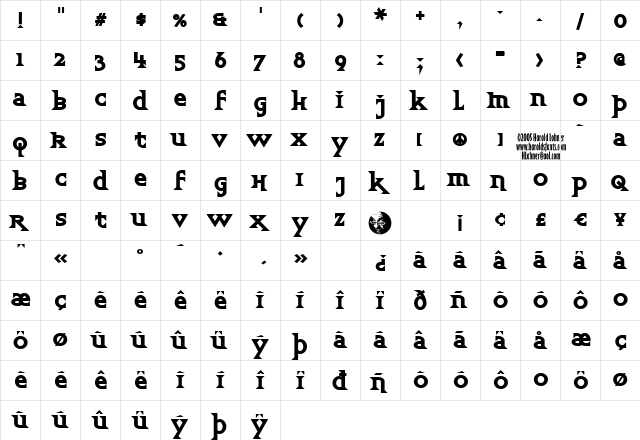
UpbeatBold Regular
Design Context for UpbeatBold Typeface
UpbeatBold is a composed and adaptable typeface that performs quietly and consistently across a wide range of design contexts. Its bold stroke weight gives it real presence on the page.